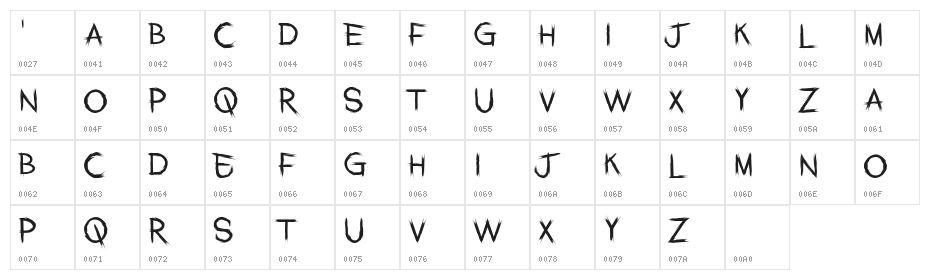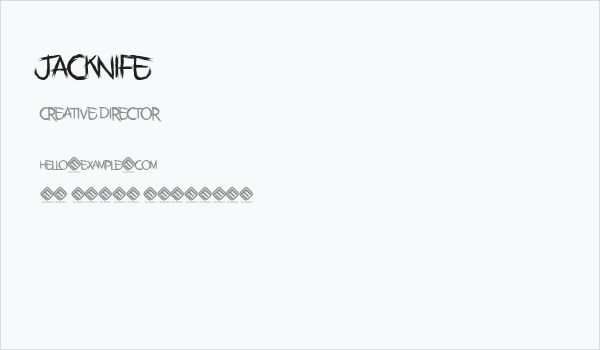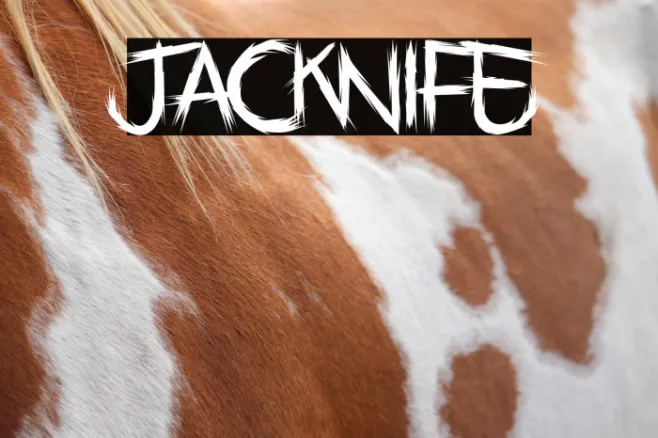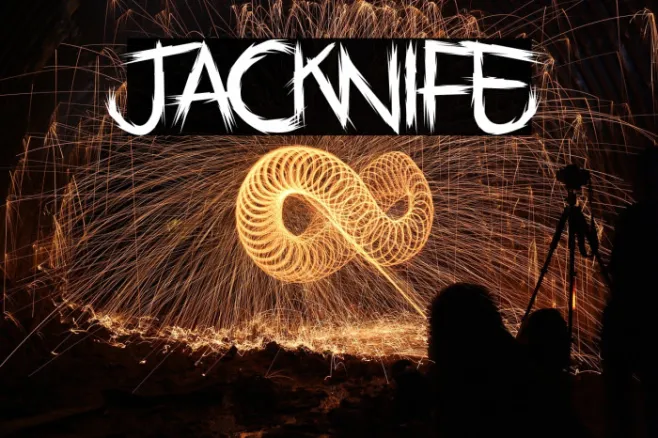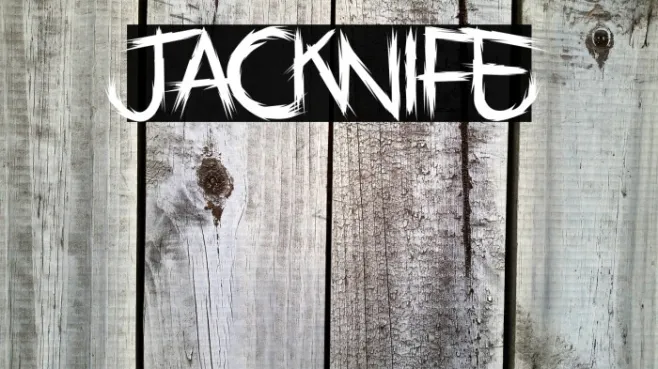
Jacknife Font
Jacknife Description
This font features a rugged, edgy design with sharp, jagged edges that give it a distressed and aggressive appearance. The characters are bold and impactful, with uneven strokes that create a sense of movement and energy. The style is reminiscent of graffiti or street art, making it ideal for projects that require a rebellious or unconventional look. The uppercase and lowercase letters maintain a consistent style, while the numbers and special characters are equally dynamic and expressive. This font is perfect for creating eye-catching headlines, posters, or album covers that need a bold statement.
| Overall Style | Modern, Edgy |
| Use Case | Headlines, Posters, Album Covers |
| Proposed Projects | Ideal for music album covers, street art-inspired designs, edgy posters, and bold branding projects. |